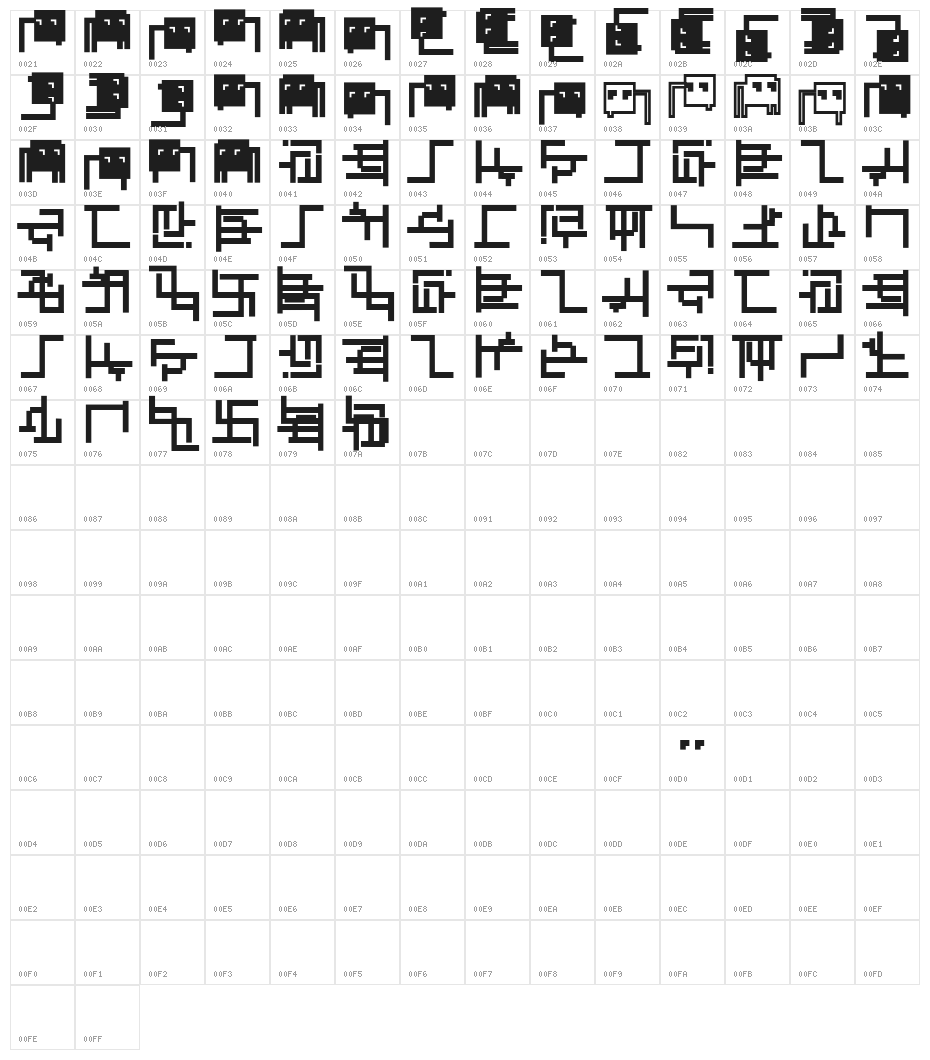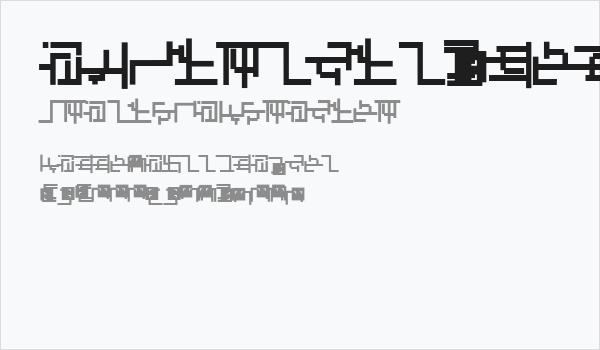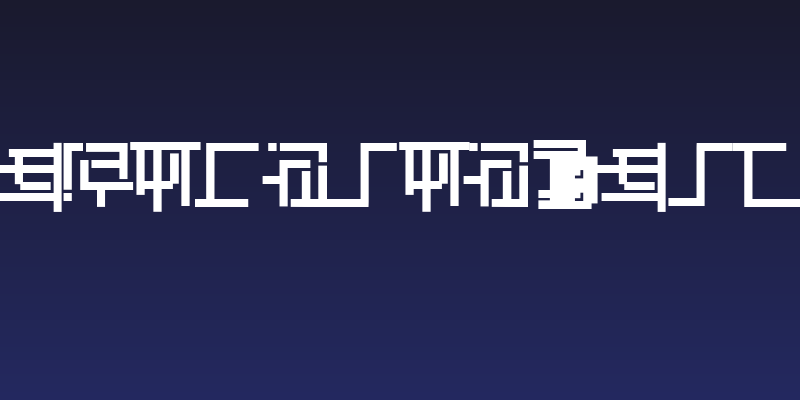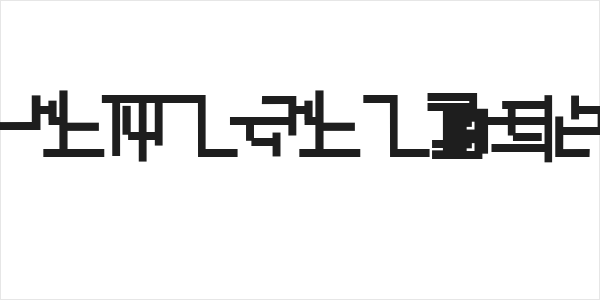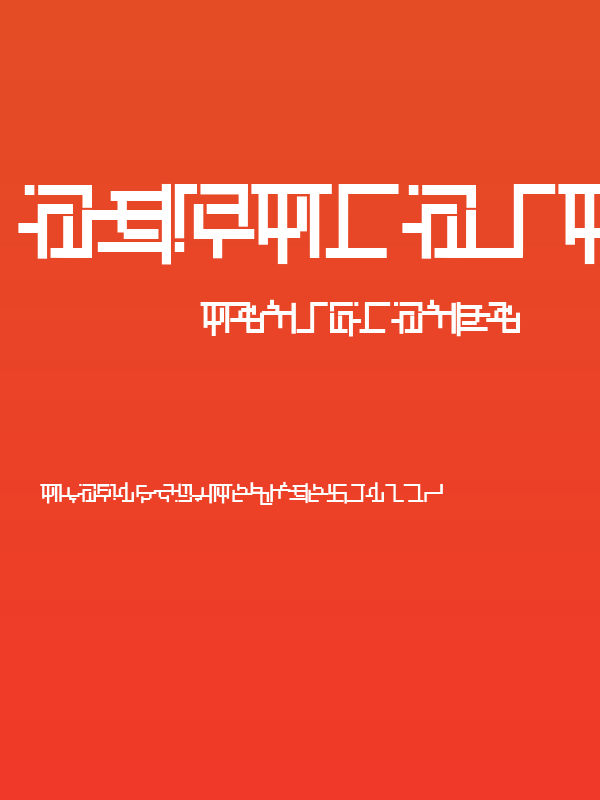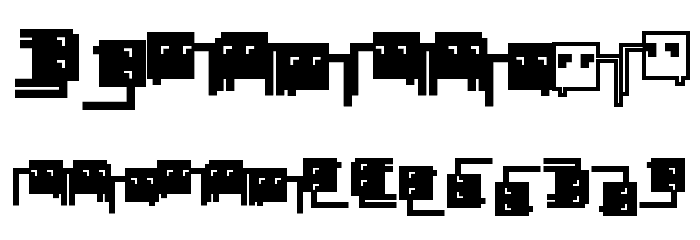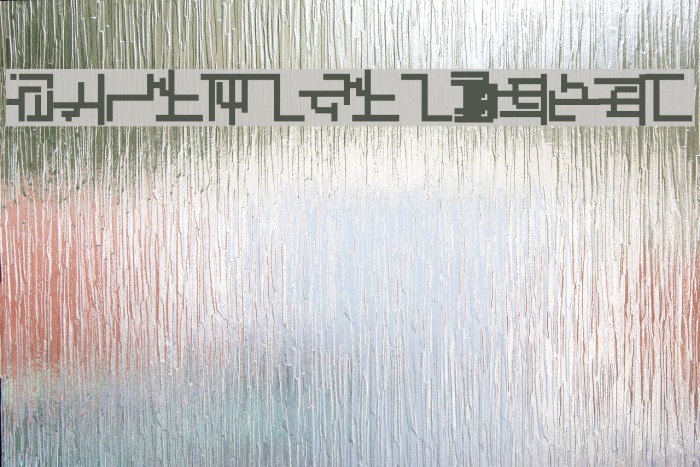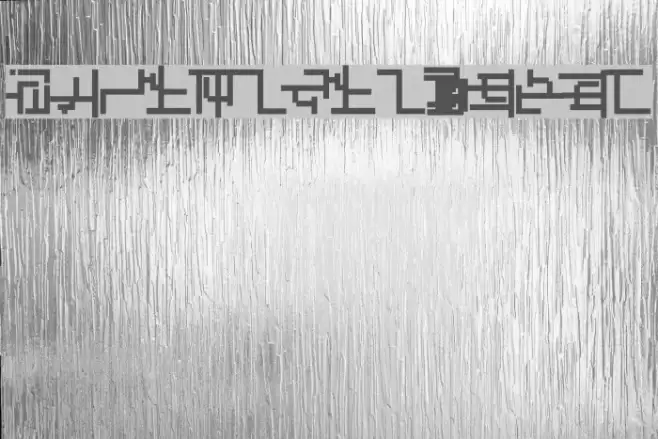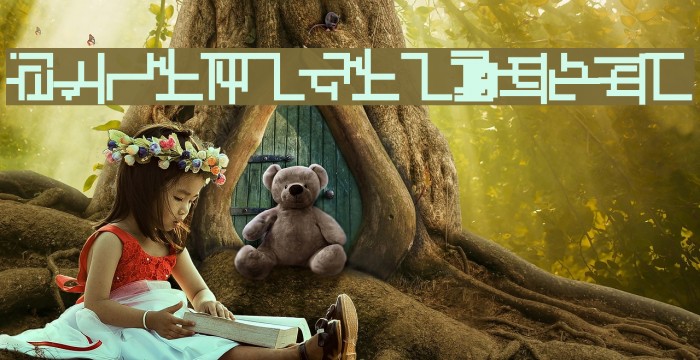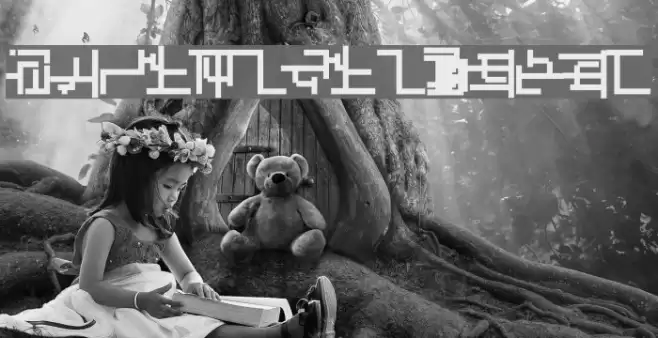
Abstracta-Bold Font
Abstracta-Bold Description
This font features an abstract, geometric design with a bold and blocky appearance. The characters are constructed with straight lines and right angles, creating a futuristic and digital aesthetic. The uniformity in line thickness gives it a cohesive look, while the angular shapes add a sense of modernity and innovation. The font lacks traditional curves, opting instead for a pixelated, almost maze-like structure that challenges readability but excels in creating a distinctive visual impact. Its unique style makes it suitable for creative and experimental projects where conventional readability is not the primary focus.
| Use Case | Logos, Headlines, Artistic displays |
| Proposed Projects | Ideal for digital art, experimental design projects, futuristic branding, and tech-themed posters. |